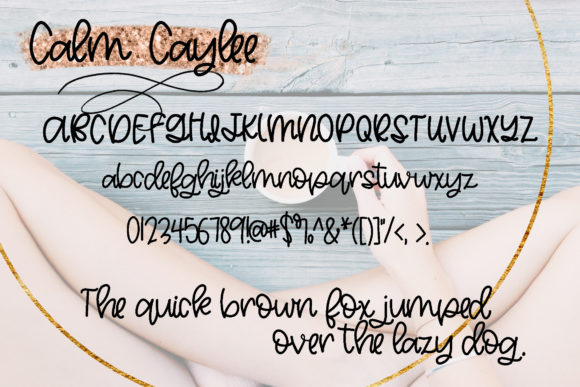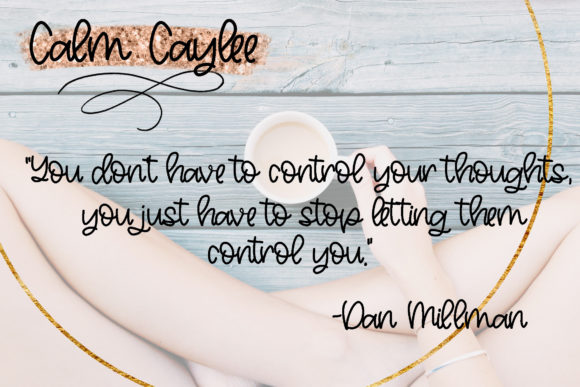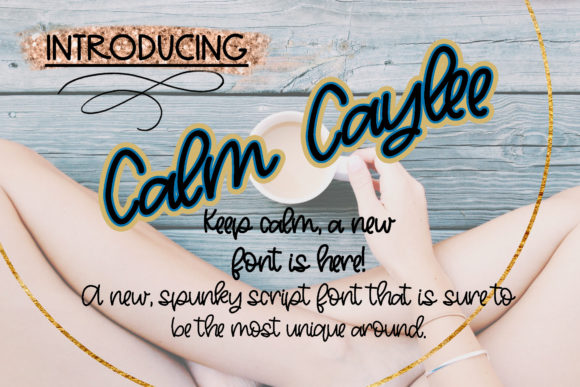
Discover the Soothing Charm of Calm Caylee Font
In the world of typography, fonts play a crucial role in conveying the tone and personality of a brand or design. For designers and crafters seeking a simple yet impactful handwritten font, Calm Caylee is an excellent choice. This beautiful font is designed to bring a sense of relaxation and serenity to your creations, making it perfect for a wide range of applications.
What is Calm Caylee Font?
Calm Caylee is a simple and relaxed handwritten font that exudes a sense of calmness and tranquility. Its elegant and smooth strokes make it an ideal choice for creating eye-catching logos, branding materials, and quotes. The font’s unique and beautiful touch is evident in every letter, which will add a personal and humanizing element to your designs.
Key Features of Calm Caylee Font
• Handwritten with love: Calm Caylee is a carefully crafted handwritten font that mimics the natural flow of handwriting, giving your designs a personal and authentic feel.
• Unique letterforms: Each letter in the Calm Caylee font has a distinct and beautiful touch, ensuring that your designs stand out from the crowd.
• Simple and relaxed: The font’s simple and relaxed nature makes it easy to read and understand, perfect for creating logos, branding materials, and quotes.
• Eye-catching: Calm Caylee’s elegant strokes and beautiful letterforms will add a touch of sophistication to your designs, making them truly eye-catching.
Use Cases for Calm Caylee Font
Calm Caylee font is versatile and can be used in various design projects, including:
• Logo design: Create a lasting impression with a custom logo designed using Calm Caylee font.
• Branding materials: Use Calm Caylee font to create consistent and recognizable branding materials, such as business cards, brochures, and letterheads.
• Quotes and typography: Add a touch of elegance to your quotes and typography designs with Calm Caylee font.
• Stationery and invitations: Create beautiful stationery and invitations that reflect your personal style with Calm Caylee font.
Why Choose Calm Caylee Font?
With so many fonts available, why choose Calm Caylee? Here are a few reasons:
• Easy to read: Calm Caylee font is designed to be easy to read, making it perfect for body text and captions.
• Highly versatile: The font’s simple and relaxed nature makes it suitable for a wide range of design projects.
• Unique and beautiful: Calm Caylee font’s unique letterforms and beautiful touch will add a personal and humanizing element to your designs.
Tips for Using Calm Caylee Font
To get the most out of Calm Caylee font, here are a few tips:
• Pair with bold fonts: Pair Calm Caylee font with bold fonts to create a striking contrast and add visual interest to your designs.
• Experiment with colors: Try out different colors and textures to add depth and personality to your designs.
• Keep it simple: Don’t over-accessorize your designs. Keep it simple and let Calm Caylee font shine.
In conclusion, Calm Caylee font is a beautiful and versatile handwritten font that is perfect for designers and crafters seeking a simple yet impactful typography solution. Its unique and beautiful touch, combined with its ease of use and high versatility, make it an excellent choice for a wide range of design projects. So why wait? Discover the soothing charm of Calm Caylee font and bring a sense of calmness and serenity to your designs.